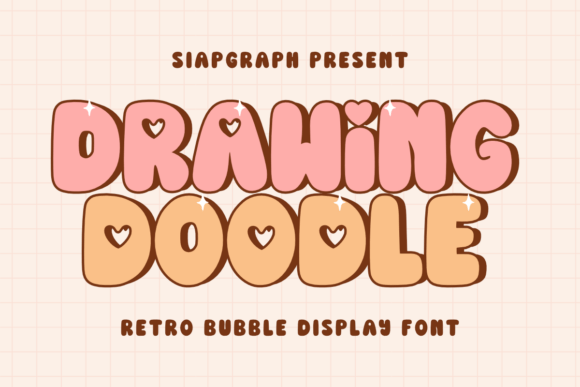
Unlocking Artistic Freedom with the Drawing Doodle Font
Have you ever been in the middle of a creative project, surrounded by scraps of paper, colorful pens, and a dash of imagination, when suddenly you’re hit with a burst of inspiration? That’s exactly the kind of artistic freedom that the Drawing Doodle Font embodies. This vibrant and imaginative bubble retro display font is designed to capture the essence of playful creativity and artistic expression.
Perfect for infusing a dose of artistic joy and whimsical retro style into your projects, the Drawing Doodle Font is a valuable asset for designers looking to add a unique touch to their work. With its plump, rounded letterforms and adorable heart accents, this font is sure to bring a smile to the faces of your end-users. Whether you’re working on stickers, planner elements, t-shirt designs, or product labels, the Drawing Doodle Font is an excellent choice for adding a touch of personality and charm.
- Unique Characteristics: Hand-drawn doodle style, perfect for creative and playful designs
Review of Drawing Doodle Font
Overall, I’m quite impressed with the Drawing Doodle Font. It’s perfect for adding a playful touch to your designs, especially for kids’ books, educational materials, or any project that needs a fun and quirky feel. ✨ The font is highly customizable, allowing you to adjust the size, color, and even add animations to make it more engaging.
One of the standout features of this font is its versatility. You can use it for headings, titles, or even as a standalone design element. It’s great for creating hand-drawn or sketch-like effects, adding a human touch to your digital designs.
- ✨ Highly customizable, allowing for easy adjustments and animations
- ✨ Perfect for adding a playful, quirky touch to designs
- ✨ Great for creating hand-drawn or sketch-like effects
- ⚠️ Can be overwhelming if used excessively
- ⚠️ May not be suitable for formal or professional designs
Overall, I’m thoroughly enjoying working with the Drawing Doodle Font. It’s a great addition to any designer’s toolkit, and I’d highly recommend it for projects that require a fun and playful touch. Just be mindful of using it in moderation to avoid overwhelming your design.